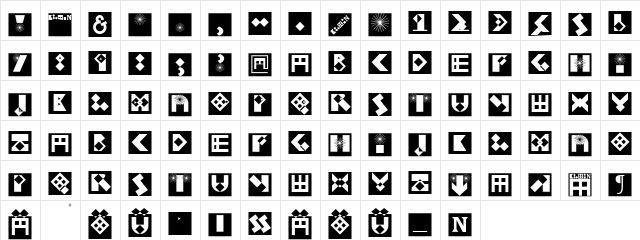
KleinBricksNegative Regular Font Preview
KleinBricksNegative Regular
Design Context for KleinBricksNegative Typeface
KleinBricksNegative is a composed and adaptable typeface that performs quietly and consistently across a wide range of design contexts.